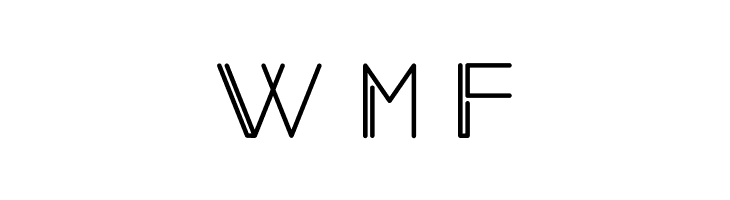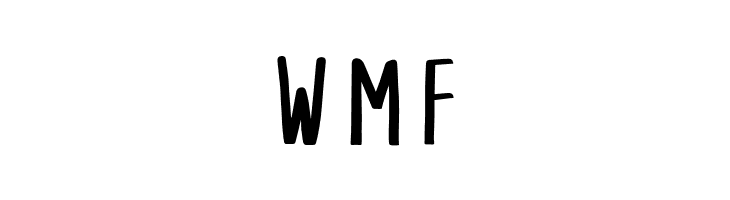
A bold, decorative serif font with a shadow effect for impactful designs.
A decorative Gothic script with intricate, angular lines and ornate detailing.
A Gothic-style font with ornate, medieval-inspired characters.
A modern, geometric font with clean lines and a futuristic-retro aesthetic.
A modern, geometric font with clean lines and a rhythmic style.
A dynamic and elegant script font with fluid, sweeping strokes.
A dynamic script font with flowing curves and high contrast, perfect for elegant designs.
A sophisticated script font with high contrast and flowing, interconnected letters.
A playful, hand-drawn font with tall, narrow letters and a casual vibe.
A bold, flowing script font with a lively and dynamic character.
A bold, flowing script font with smooth, rounded edges and dynamic curves.
A bold, flowing script font with elegant swash caps and dynamic curves.
A bold, swashy script font with playful and energetic curves.
A futuristic, geometric font with bold, angular letterforms.
A bold, brush-style font with dynamic, artistic strokes.
A graceful script font with flowing, interconnected letters and dynamic contrast.
A bold, playful handwritten font with thick strokes and rounded edges.
A bold, modern font with tall, narrow characters and consistent stroke widths.
A bold, angular font with geometric cut-outs and high contrast, ideal for decorative use.
A bold, geometric sans-serif font with a distinct outline effect.
A bold, textured font with a distressed, vintage look.
A playful, bold, and outlined font with a hand-drawn, cartoonish style.
A bold, playful font with a shadow effect and rounded, irregular characters.
A playful, textured font with bold, rounded characters and a speckled pattern.
A readability-focused font with distinct shapes and heavier bottoms, aiding dyslexic readers.
A bold, accessible font designed to improve readability for dyslexic readers.
A bold, italic font designed for readability and accessibility, ideal for dyslexic readers.
A dyslexia-friendly italic font with unique slants and varying thickness for enhanced readability.
A dyslexia-friendly font with distinct, weighted letterforms for improved readability.
A bold, accessible font designed to enhance readability with unique, distinguishable letterforms.
A bold, italic font designed for improved readability, especially for dyslexic readers.
An accessible, italic font with distinct, weighted letterforms for enhanced readability.
A monospaced font designed for readability, featuring distinct, weighted letterforms.
Bold, modern font with uniform stroke width and geometric shapes.